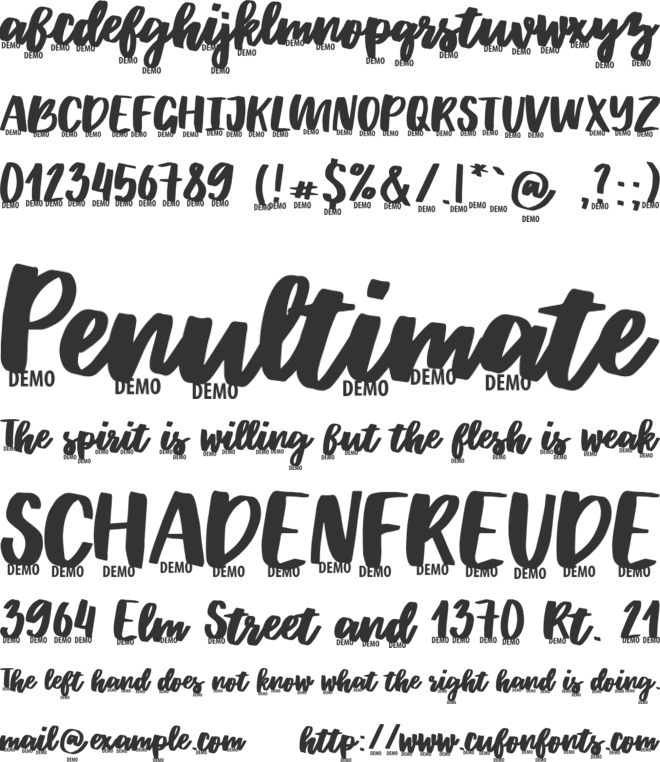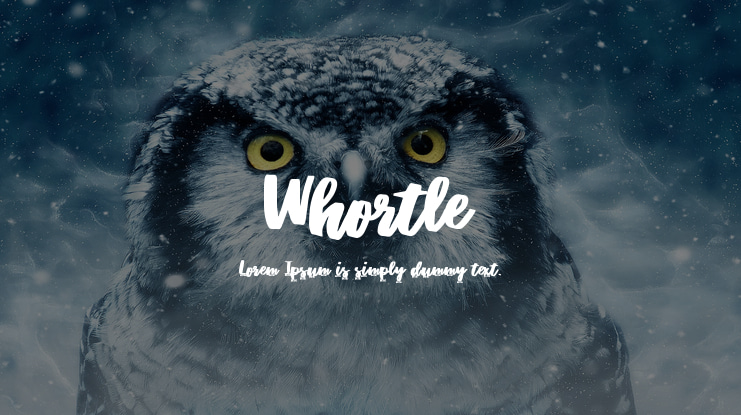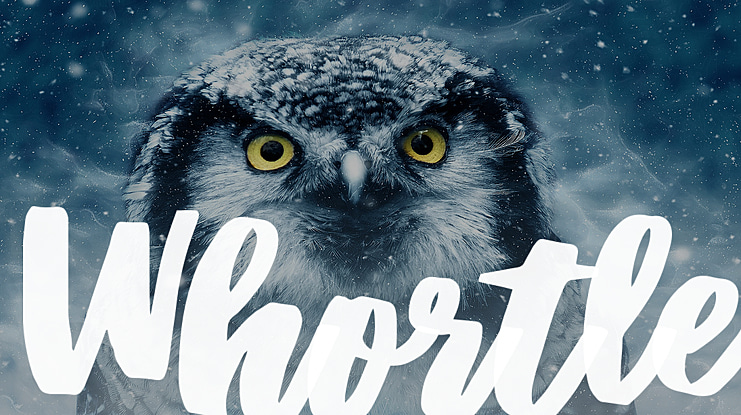
Whortle Font
Bold, free-flowing and confident, Whortle is guaranteed to add an eye-catching appeal to your designs. Irregular shapes and dancing baseline make it feel much more personal. It looks great in both all-caps as well as lowercase.
Whortle comes with upper and lowercase characters, large set of punctuation glyphs, numerals, and supports international languages.